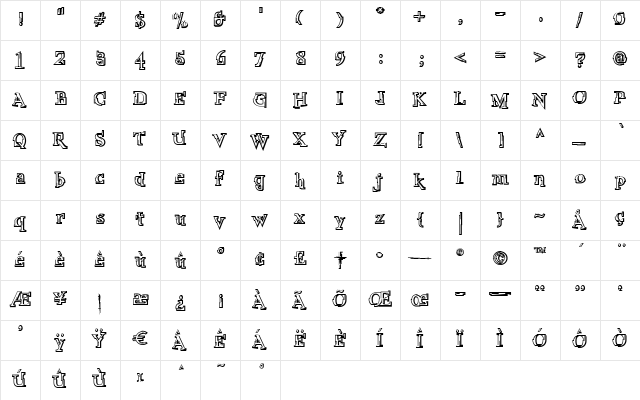
OWONeoHumanOutline Regular
Design Context for OWONeoHumanOutline Typeface
OWONeoHumanOutline brings ornamental detail and strong personality to headlines and identities, where visual impact matters more than quiet functionality.
Font Pairing: Pair with a clean neutral sans-serif for body copy to let OWONeoHumanOutline's character lead without overwhelming the composition.
Pro Tip: Treat OWONeoHumanOutline as the centrepiece of your typographic hierarchy. One strong heading set in a decorative face can carry an entire layout.